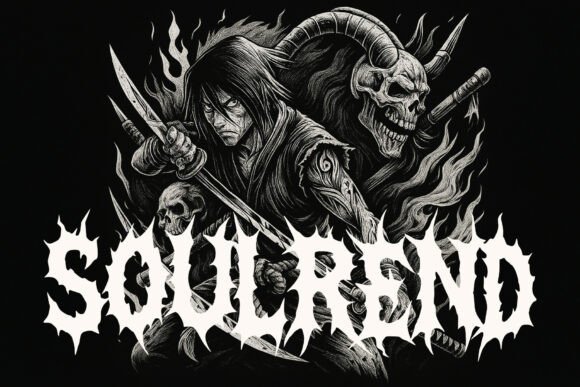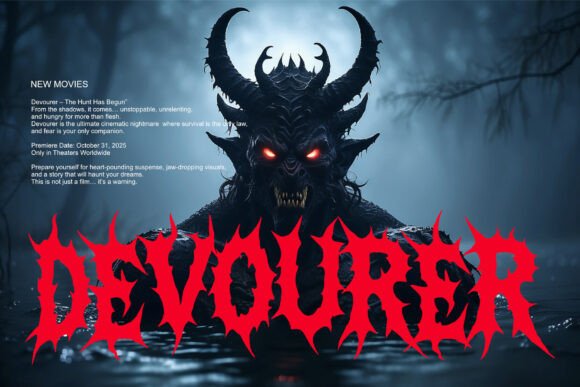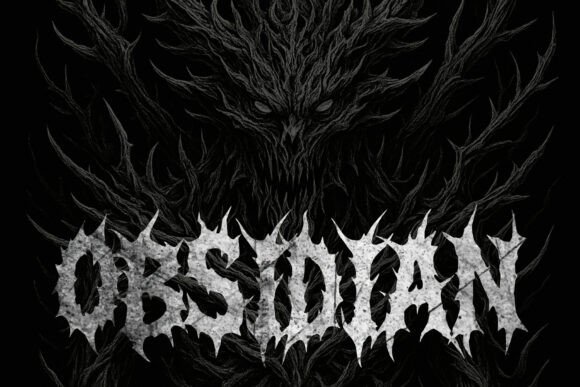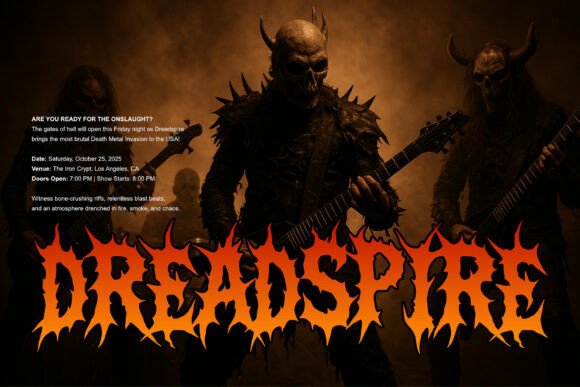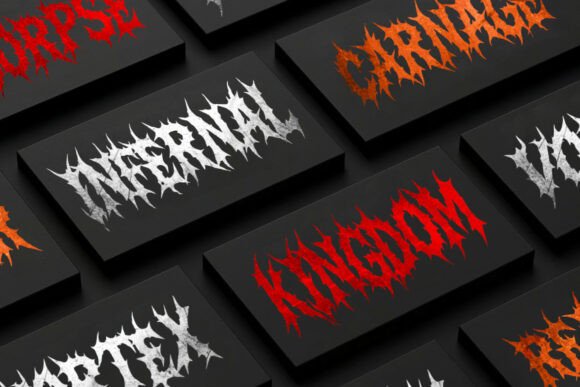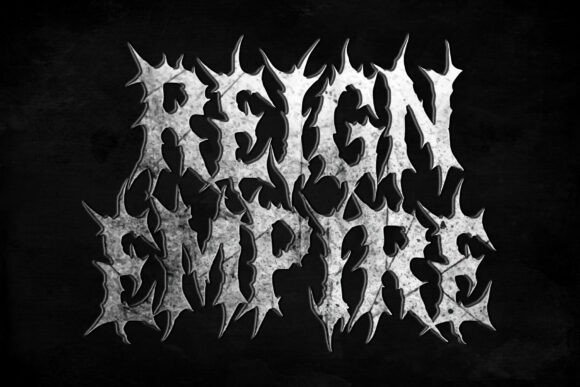
Introduction to Necrosarqe Regular Font
Do you remember that moment when you stumbled upon the perfect font for your design project? The one that instantly transported you to a world of dark fantasy and raw energy? For designers who crave the unbridled power of extreme metal, the Necrosarqe Regular Font is a game-changer. Its bold, aggressive lines and jagged silhouettes evoke the raw chaos of a mosh pit, demanding attention and fueling creativity.
Whether you’re working on a horror poster, a metal band logo, or a dark fantasy novel cover, Necrosarqe Regular Font is an invaluable design resource. With its high-quality, free download, you can unleash your creative vision without breaking the bank. The transparent background allows for seamless integration with any design, making it an essential tool for designers who want to add an edge to their projects.
- High-quality font suitable for various creative projects, including graphic design and digital art.
- Unique, eerie aesthetic with a transparent background, ideal for adding a touch of mystery to your designs.
- Includes the Necrosarqe Regular Font, a versatile and readable font suitable for body text and headings.
- Perfect for designers looking for a unique and high-quality font to elevate their creative projects.
Honest Review: Necrosarqe Regular Font
I recently stumbled upon the Necrosarqe Regular Font, and I must say it’s a fantastic addition to my design resource library. The font’s unique aesthetic makes it perfect for creative projects that require a touch of sophistication and elegance.
One of the things that stands out about this font is its high quality and versatility. It’s a free download, which is always a bonus, and it works seamlessly with both light and dark backgrounds. In fact, I love how the transparent background option allows me to customize the font’s appearance to fit my design needs.
- ✨ Unique aesthetic that adds a touch of sophistication to designs
- ✨ High quality and versatility make it perfect for various creative projects
- ⚠️ Limited character set may not be suitable for complex or technical content
- ⚠️ Font may not be as readable at very small sizes or in low-resolution environments
Overall, I’m impressed with the Necrosarqe Regular Font and would highly recommend it to designers looking for a high-quality, free font to add to their design resource library.
For the best results, use the Necrosarqe Regular Font on high-quality designs, such as posters, flyers, and brochures. The font’s unique design makes it perfect for creative projects that require a touch of sophistication and elegance. Additionally, use a transparent background to create a clean and minimalist look.
The Necrosarqe Regular Font is ideal for a variety of design projects, including:
- Posters and flyers for events and promotions
- Brochures and catalogs for businesses and products
- Infographics and presentations for educational and informative content
With its free download and high-quality design, the Necrosarqe Regular Font is a valuable design resource for any creative project.